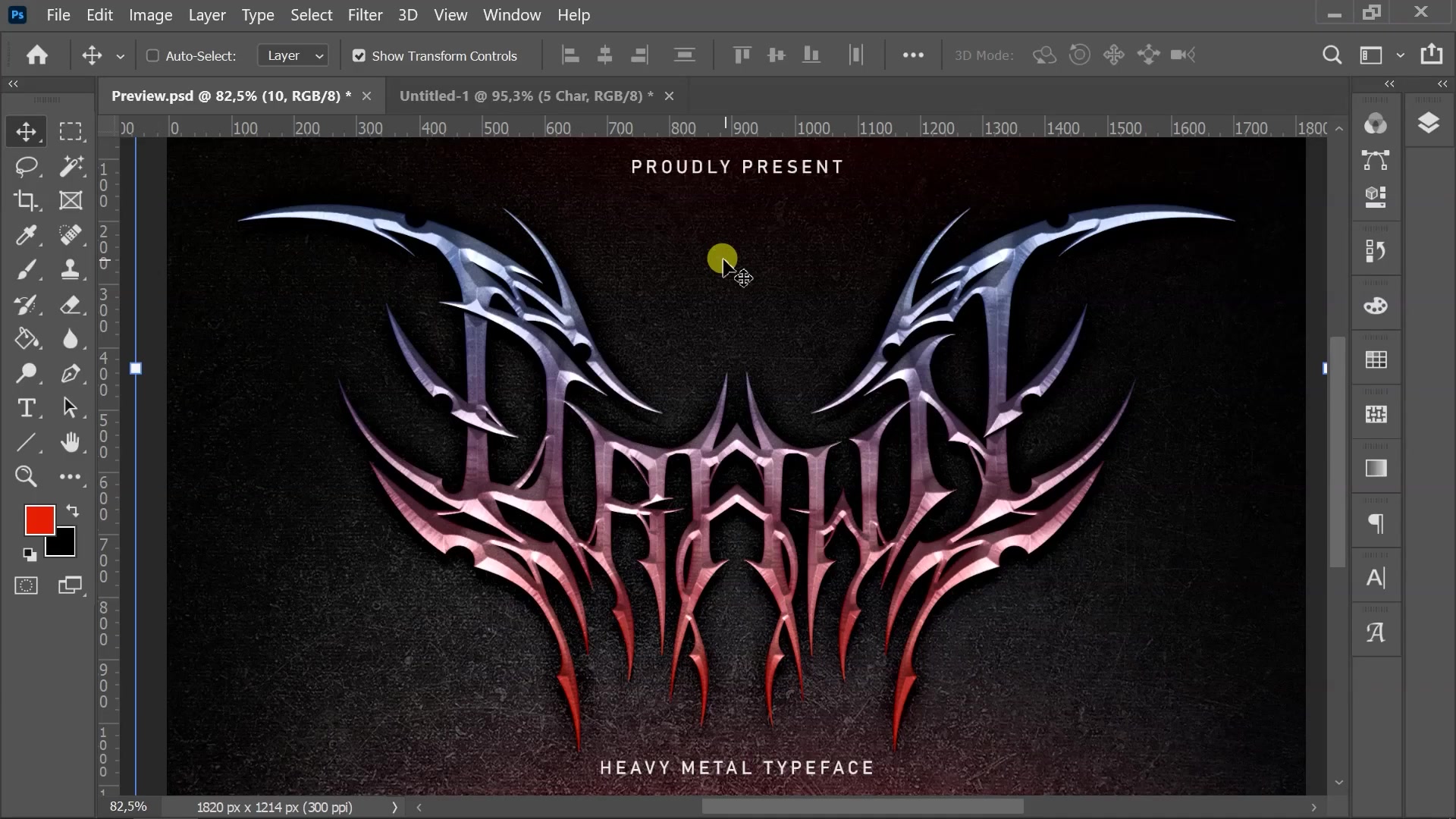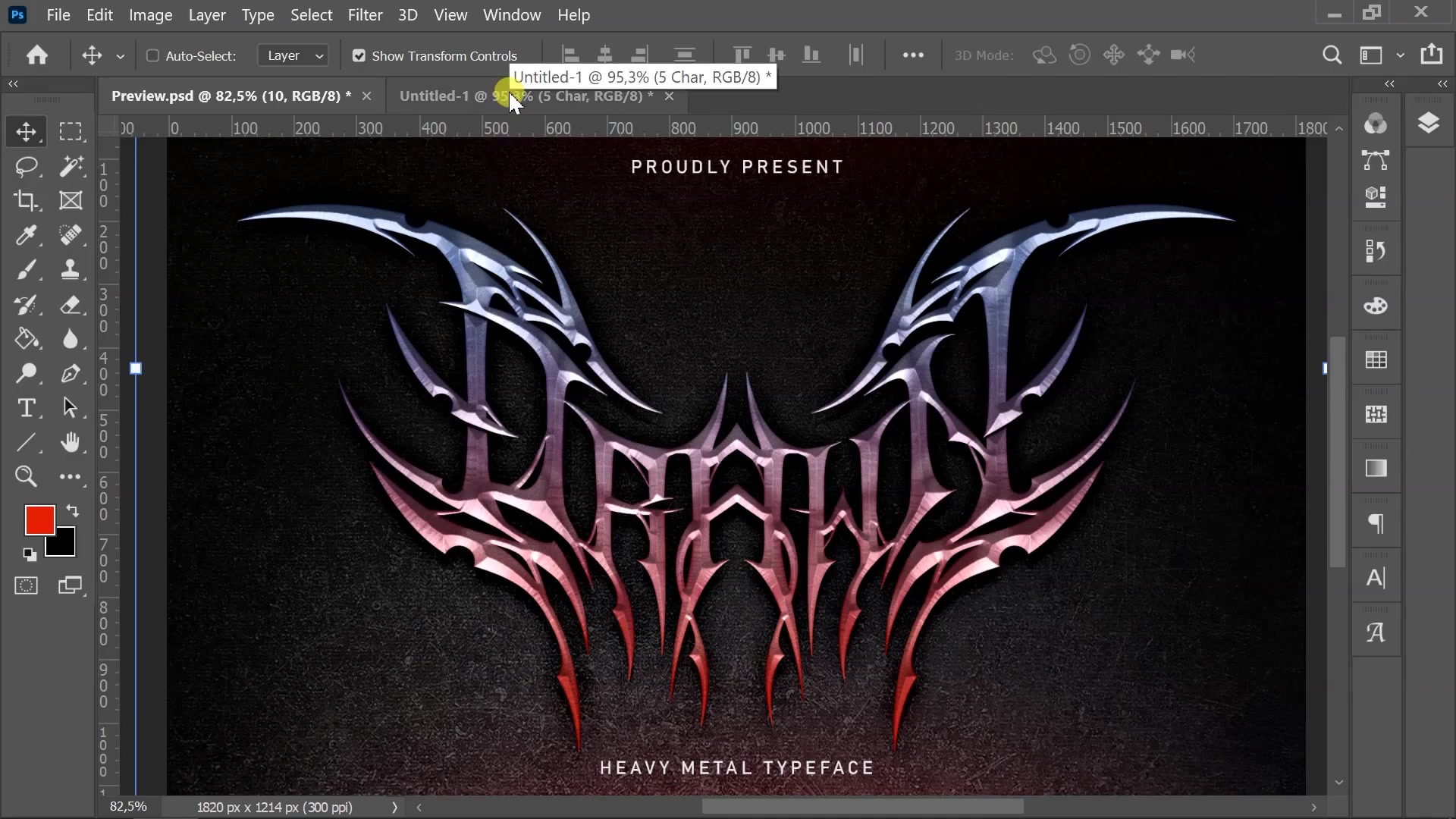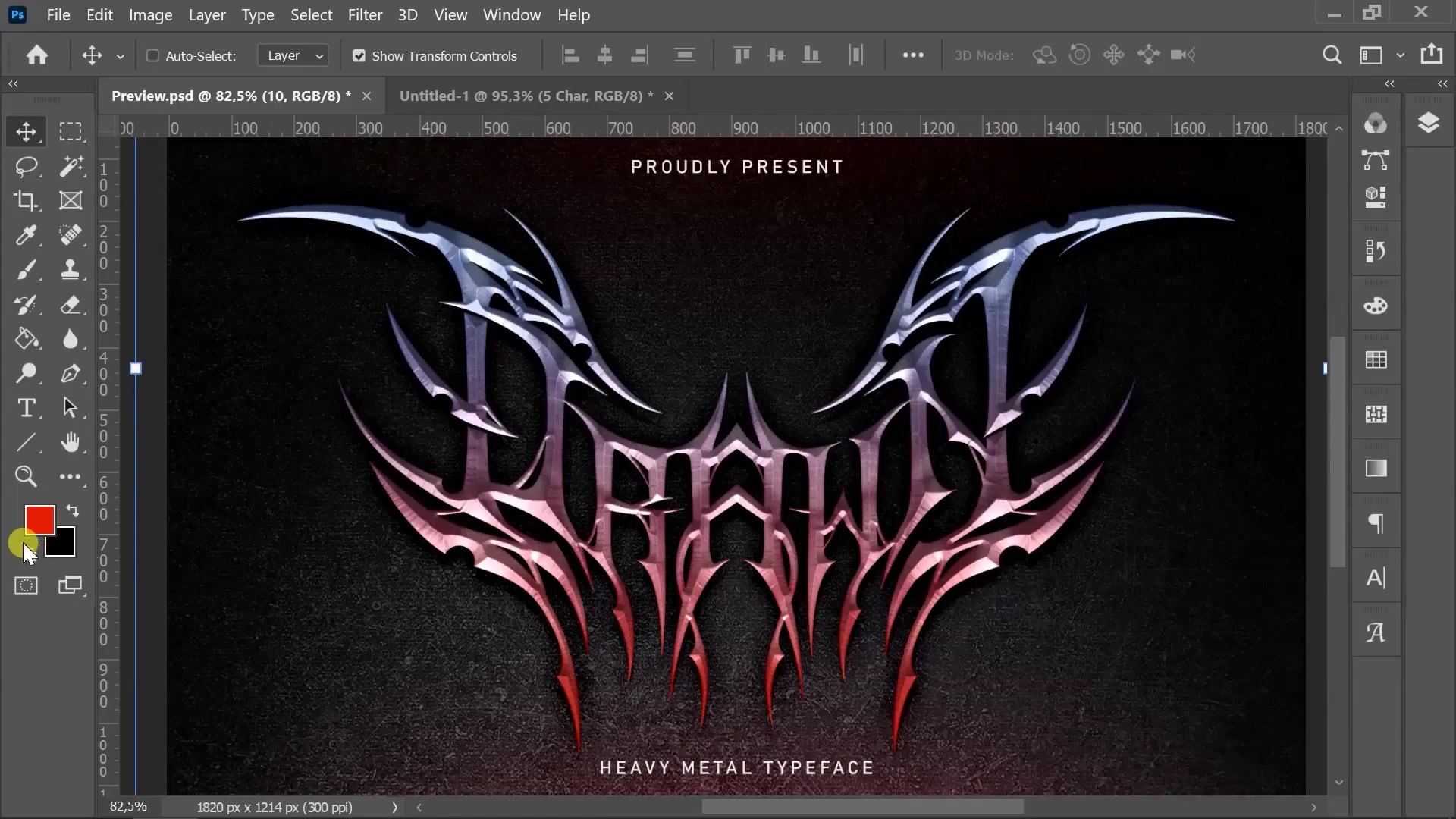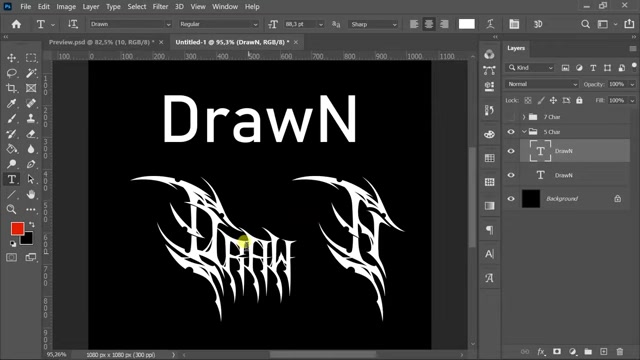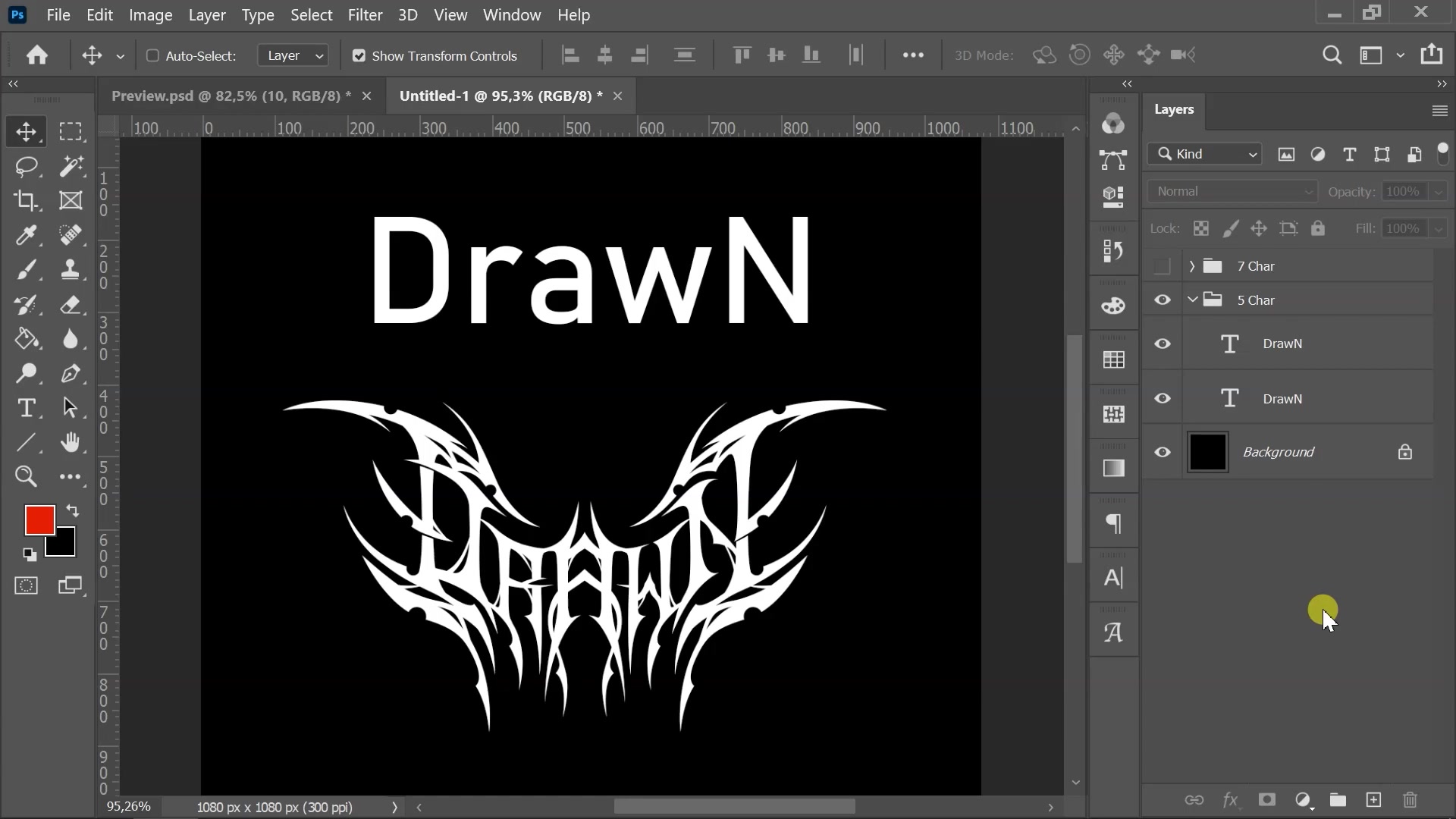
Drawn Font Tutorial: Create Heavy Metal Typography in Photoshop
Are you ready to unleash your inner metalhead and craft some seriously wicked typography? In this tutorial, we're diving deep into the world of the Drawn font, a self-made heavy metal typeface designed to give your projects that extra edge. Forget about generic fonts – with Drawn, you'll be creating logos, posters, and artwork that scream metal in no time. We will explore the glyph features and alternative characters in Photoshop, and show you how to make adjustments with this font to make the best metal design. So, grab your digital axe, fire up Photoshop, and let's get started on this epic design journey! This tutorial is designed for both beginners and experienced designers. Whether you're looking to create a brutal logo for your band or add a metal touch to your design projects, the Drawn font is versatile for all your needs. Follow the steps and watch your typography transform into works of art.
Key Points
Discover the Drawn font, a heavy metal typeface for unique designs.
Learn to access glyphs and alternative characters in Photoshop.
Customize your text with the Drawn font for a metal aesthetic.
Apply techniques to create logos, posters, and metal-inspired artwork.
Understand how to manipulate the Drawn font to create distinct designs.
Master the use of alternative characters to enhance your typography.
Getting Started with Drawn Font in Photoshop
Understanding the Drawn Font
The Drawn font is a custom-made heavy metal typeface designed for creating unique and impactful designs. It's incredibly user-friendly and comes with a plethora of alternative character combinations, allowing for extensive customization. This makes it an ideal choice for various projects such as band logos, album art, posters, and more. The Drawn font is not just about aesthetics; it's about functionality. It's designed to be easily integrated into your design workflow. The font is compatible with most design software, but it shines brightest in Adobe Photoshop, where you can fully exploit its features to create stunning designs. Understanding its unique features and how to access them is crucial for making the most out of this powerful Typeface. The key to mastering the Drawn Font lies in understanding its glyphs and alternative characters. These features provide the flexibility to transform ordinary text into extraordinary metal designs. Let's delve into how to access and utilize these features in Photoshop.
Accessing Alternative Characters in Photoshop
To fully utilize the Drawn font, you need to know how to access its alternative characters. These characters allow you to customize your text and create unique, metal-inspired designs. Here's how to do it in Adobe Photoshop:
1. Select Your Font Layer: Begin by selecting the text layer you want to modify.
2. Change the Font: Change the text to the "Drawn" font. You can find it in your font list within Photoshop’s character panel.
3. Access the Glyphs Panel: The glyphs panel allows you to view and insert alternative characters. Go to Window > Glyphs to open the panel.
4. Browse Alternative Characters: In the Glyphs panel, you’ll see all available characters for the Drawn font, including the alternative ones. Scroll through the panel to find the character you want to use.
5. Insert Alternative Characters: Double-click on the alternative character in the Glyphs panel to insert it into your text. You can also select a character in your text and then double-click on the desired glyph to replace it.
By following these steps, you can easily access and utilize the alternative characters of the Drawn font to enhance your designs. The glyphs feature is your gateway to creating a metal design that truly stands out.
Customizing Text with Drawn Font: Step-by-Step
Creating a Five-Letter Metal Design
Let's start with a simple example: transforming a five-letter WORD into a metal design using the Drawn font. This exercise will help you understand the basics of customizing text with this unique typeface.
1. Type Your Word: Create a new text layer in Photoshop and type your five-letter word. For example, let's use the word "Drawn."
2. Apply the Drawn Font: Select the text layer and change the font to "Drawn" from your font list. You’ll immediately Notice the transformation to a metal-inspired design.
3. Adjust Alternative Characters: Now, let’s customize the letters using alternative characters. Follow these steps:
• Select the letter you want to change. For instance, let’s start with the letter “D”.
• Open the Glyphs panel (Window > Glyphs).
• Find alternative characters for the letter “D” in the Glyphs panel.
• Double-click on the alternative character to replace the default one.
4. Repeat for Other Letters: Repeat this process for each letter in the word to create a unique metal design. Experiment with different combinations to achieve the look you want.
5. Fine-Tune Your Design: Adjust the spacing and kerning between letters to ensure the design looks balanced and visually appealing.
By following these steps, you can transform any five-letter word into a striking metal design using the Drawn font and its alternative characters.
Working with Seven-Character Sentences
Now that you've mastered customizing a five-letter word, let's move on to a seven-character sentence. This will give you a better understanding of how to work with longer text and create more complex metal designs.
1. Type Your Sentence: Create a new text layer in Photoshop and type your seven-character sentence. For this example, let's use the sentence "Brewbox."
2. Apply the Drawn Font: Select the text layer and change the font to "Drawn." The sentence will transform into a metal-inspired design.
3. Customize Letters: Customize each letter using alternative characters from the Glyphs panel. Select a letter, find an alternative character in the Glyphs panel, and double-click to replace the default letter.
What are some popular metal-inspired design trends?
Metal-inspired design trends are constantly evolving, but some popular trends include: Dark and Gritty Aesthetics: Designs that incorporate dark colors, grunge textures, and distressed effects to create a raw and edgy look. Symmetrical and Intricate Designs: Designs that feature symmetrical layouts and intricate details, often inspired by gothic architecture and occult symbolism. Sharp and Angular Shapes: Designs that use sharp and angular shapes to convey a sense of aggression and power. Use of Metal Elements: Designs that incorporate metal elements such as rivets, spikes, chains, and barbed wire to further enhance the metal aesthetic. Calligraphic and Ornate Typography: Designs that combine metal typography with calligraphic elements to create a sense of elegance and sophistication. Use of Symbolic Imagery: Designs that feature symbolic imagery such as skulls, demons, and mythical creatures to convey a sense of darkness and mystery. Neon and Cyberpunk Influences: Designs that blend metal aesthetics with neon colors and cyberpunk elements to create a futuristic and dystopian look. By incorporating these trends into your designs, you can create metal-inspired artwork that is both modern and timeless.